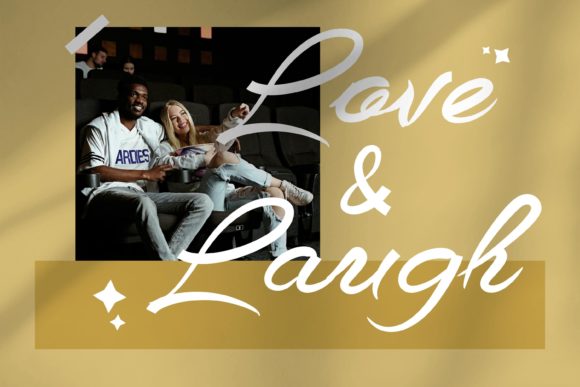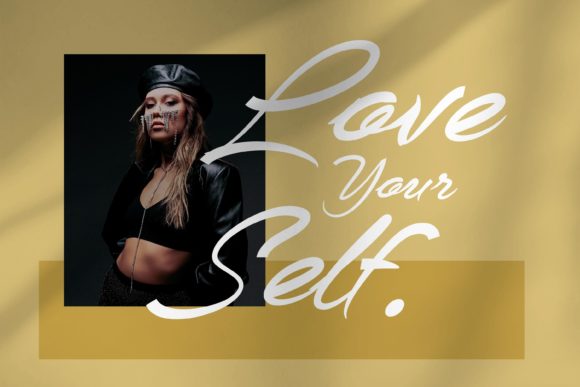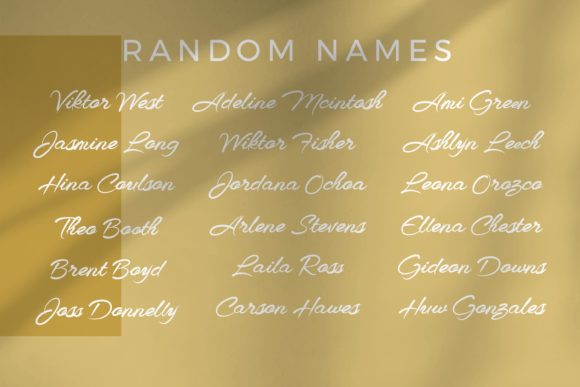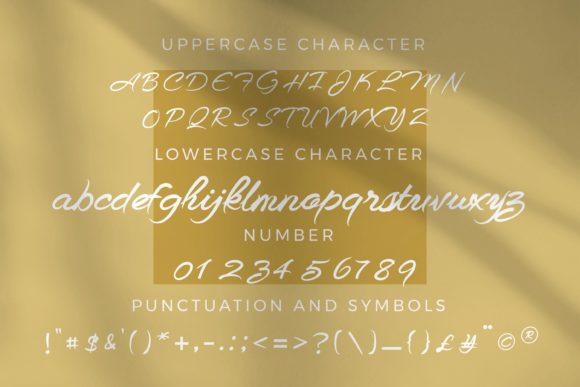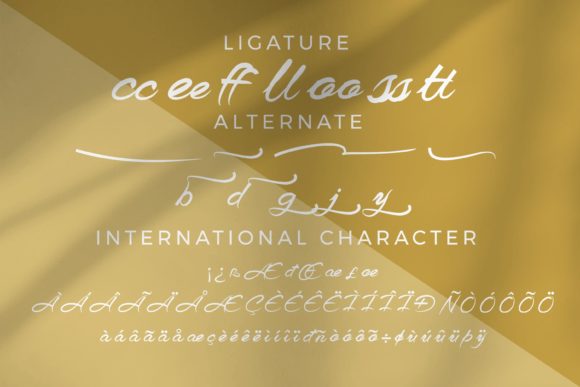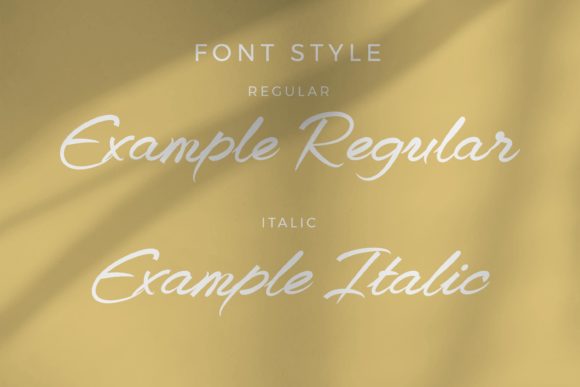
The Magic of Bidadari Syurga Font: Bringing Your Creations to Life
Have you ever sat down with a blank page, staring at the screen, and suddenly, an idea strikes? The creative juices start flowing, and you can’t wait to bring your vision to life. This is the moment when the right tools can make all the difference. For designers, the perfect font can elevate their work from good to extraordinary, and that’s where the enchanting Bidadari Syurga Font comes in.
This lovely script font is designed to add a touch of whimsy and charm to your most creative ideas. With its playful characters that seem to dance along the baseline, Bidadari Syurga Font is the perfect addition to any design project. Whether you’re a seasoned pro or just starting out, this font is sure to bring a smile to your face and make your work stand out in a crowd.
Bidadari Syurga Font Key Features
- Font Family: Bidadari Syurga Font is a typeface designed to evoke a sense of elegance and sophistication, suitable for various applications including editorial, advertising, and packaging.
- Unique Characteristics: Bidadari Syurga Font features a distinctive combination of classic and modern elements, with intricate details and ornaments that set it apart from other typefaces.
Bidadari Syurga Font Review
As a designer, I’m always on the lookout for unique and captivating fonts to elevate my designs. The Bidadari Syurga Font caught my attention, and I was eager to dive in and see what it had to offer. Here’s my honest review.
- ✨ Elegant and sophisticated feel: The Bidadari Syurga Font exudes an air of luxury and refinement, making it perfect for high-end designs, branding, or luxury products.
- ✨ Beautiful calligraphy: The font’s calligraphy is stunning, with intricate details and flourishes that add a touch of sophistication.
- ✨ Versatile: The font comes in various weights and styles, making it easy to use across different design applications.
- ⚠️ Limited language support: Unfortunately, the Bidadari Syurga Font only supports a limited number of languages, which may be a concern for designers working with multilingual projects.
- ⚠️ Not ideal for body text: While the font is stunning for headings and titles, it may not be the best choice for body text due to its complex design and potential readability issues.
While the Bidadari Syurga Font has its limitations, it’s a stunning addition to any designer’s toolkit. Its elegant feel and beautiful calligraphy make it perfect for high-end designs, and its versatility makes it easy to use across different applications. With a bit of careful consideration and planning, this font can be a valuable asset for designers looking to add a touch of luxury to their work.
Bidadari Syurga Font: A Practical Application Guide
For optimal results, use Bidadari Syurga Font in combination with elegant graphics and a minimalist design aesthetic.
Bidadari Syurga Font is ideal for:
- Event branding and marketing materials
- Personalized gifts and certificates